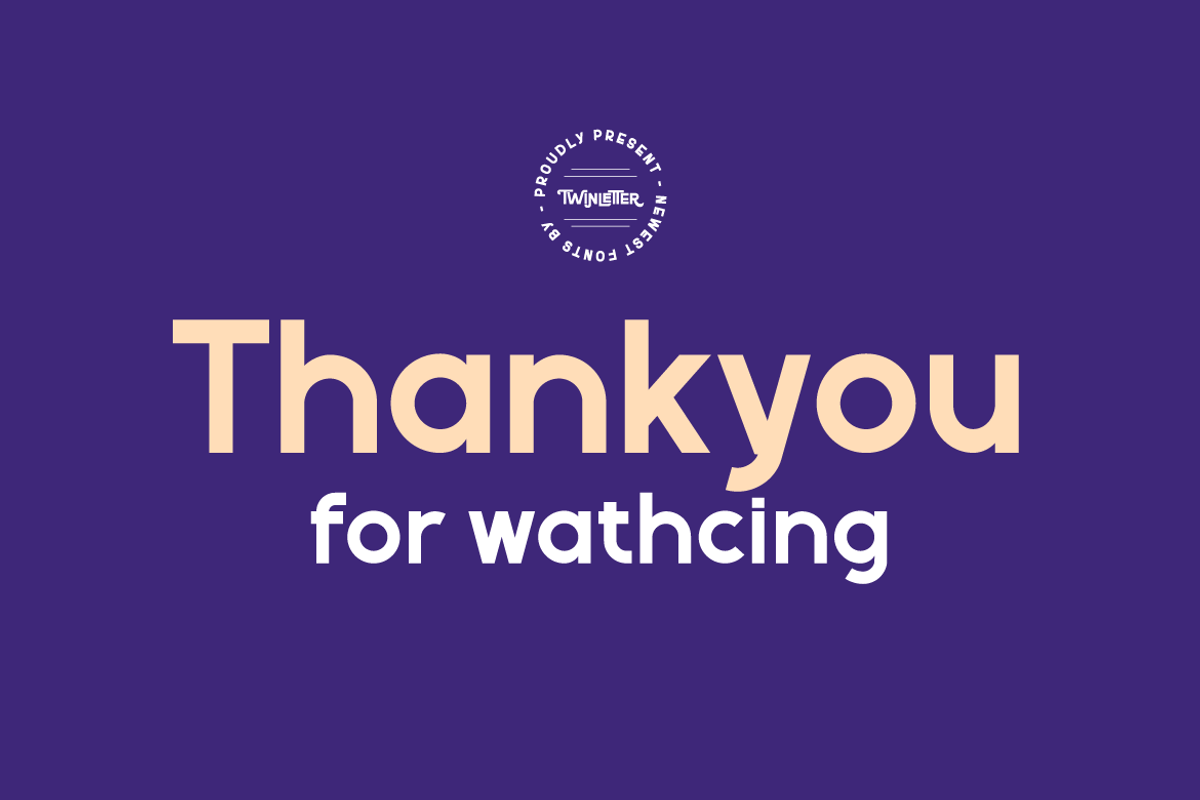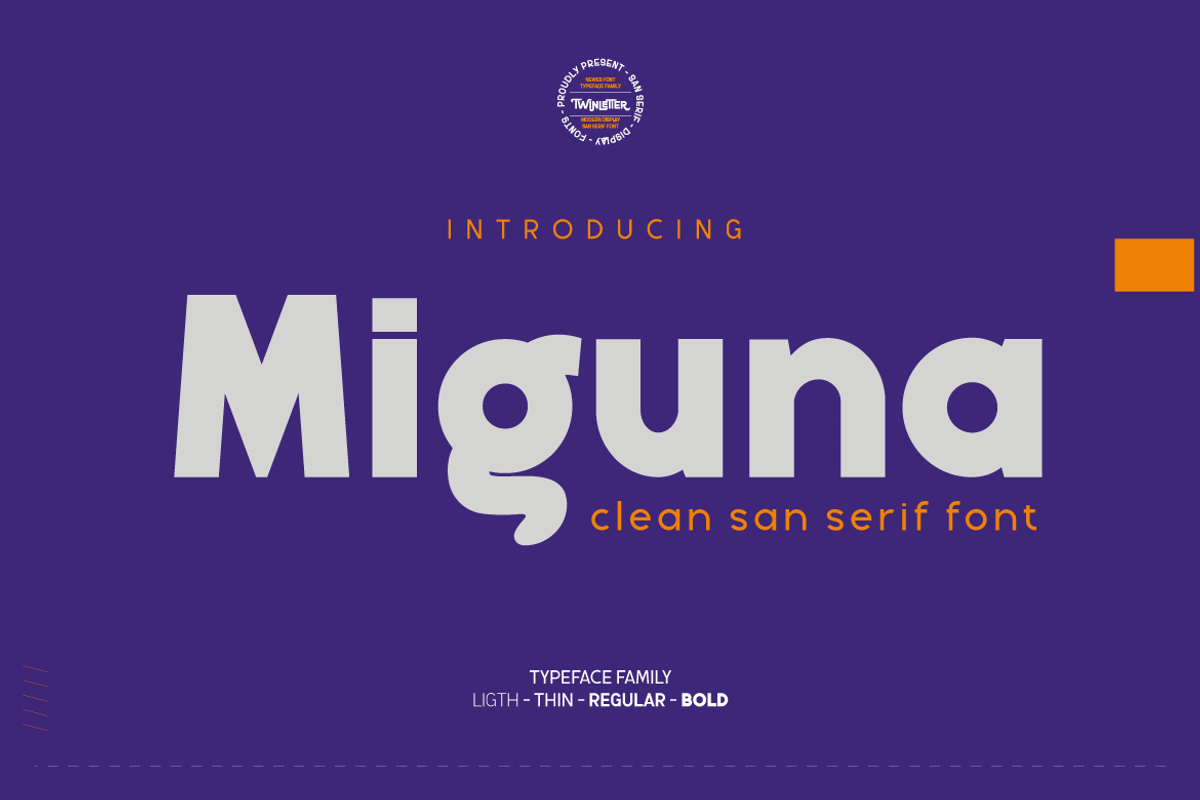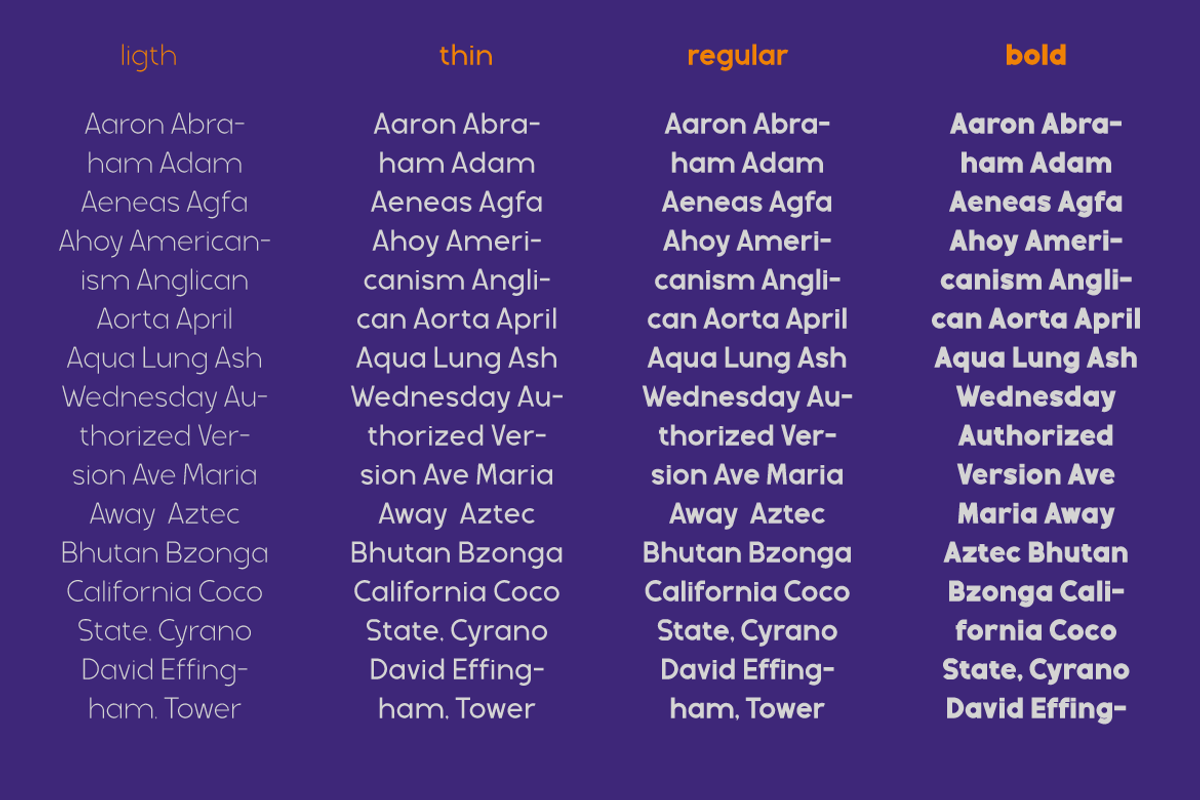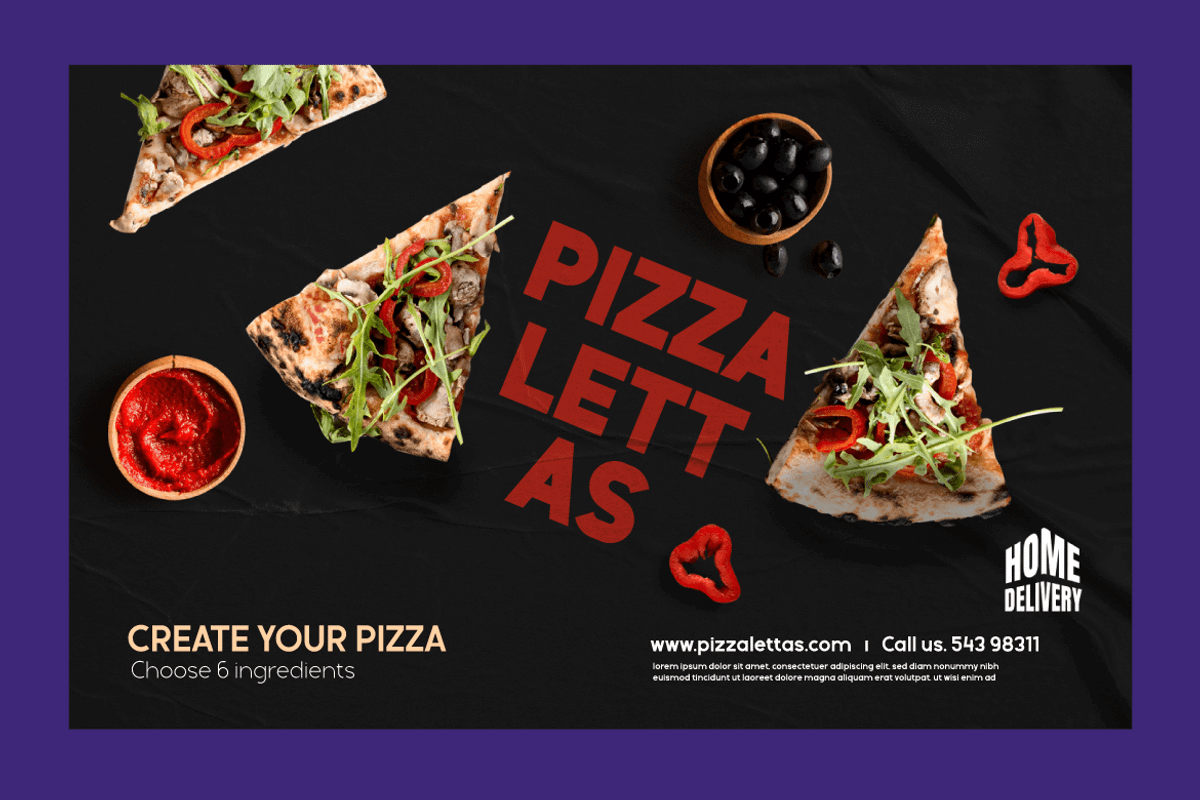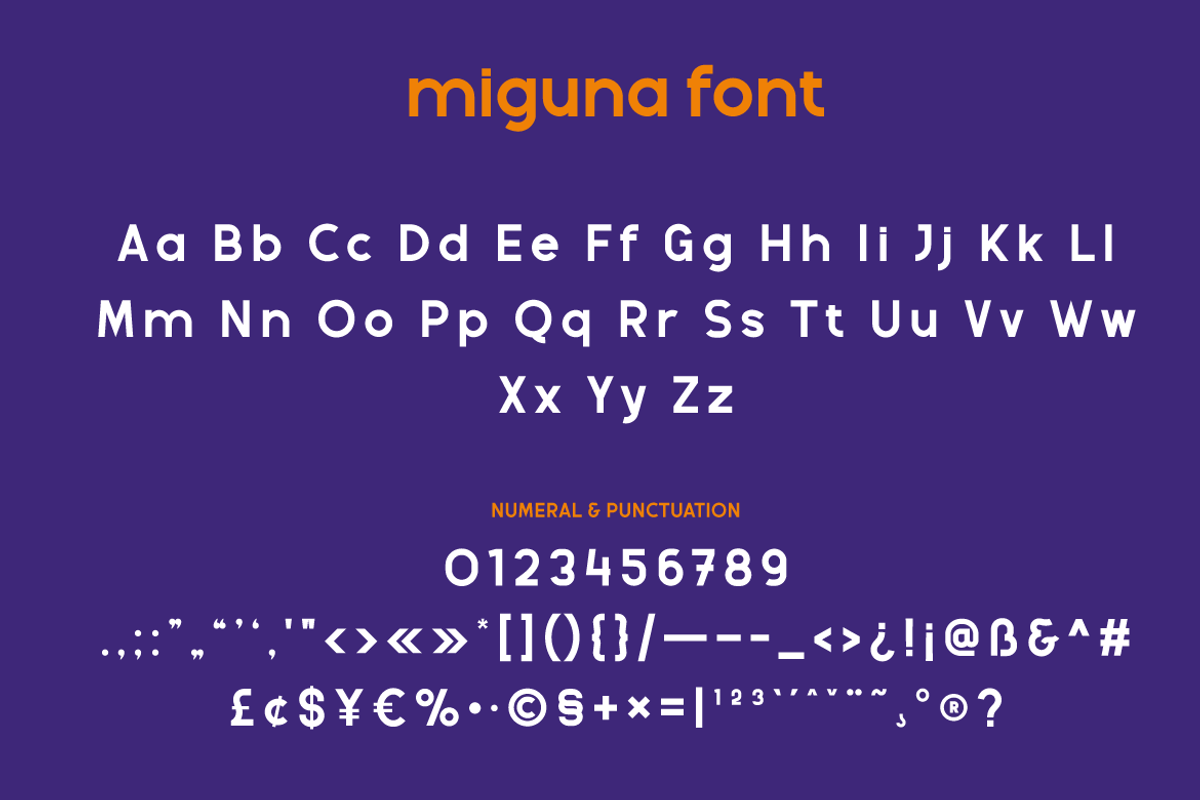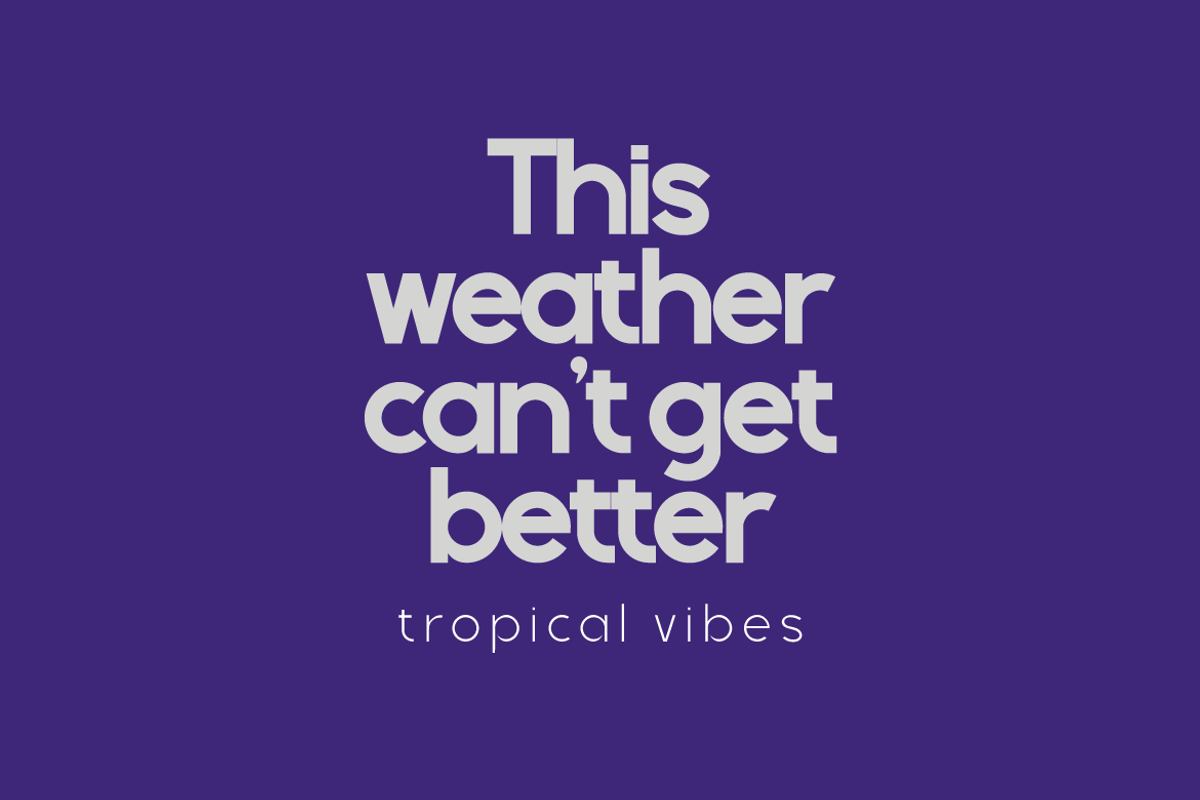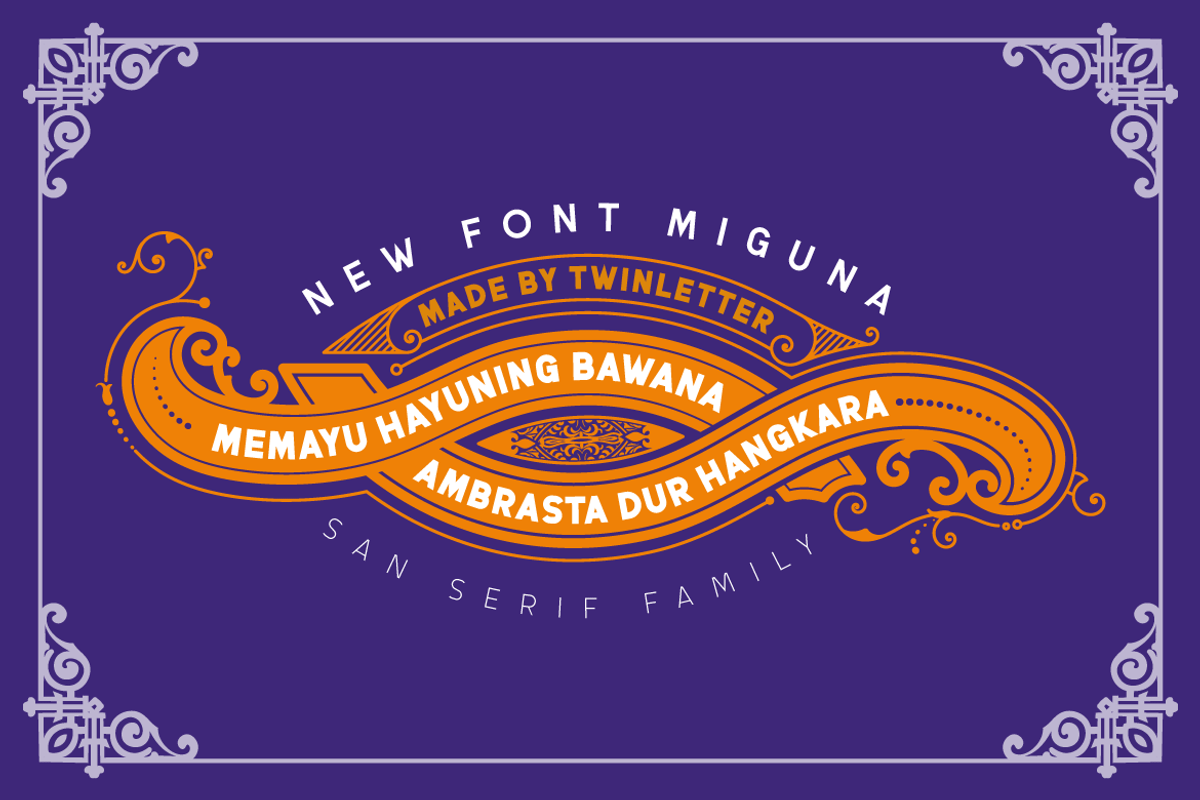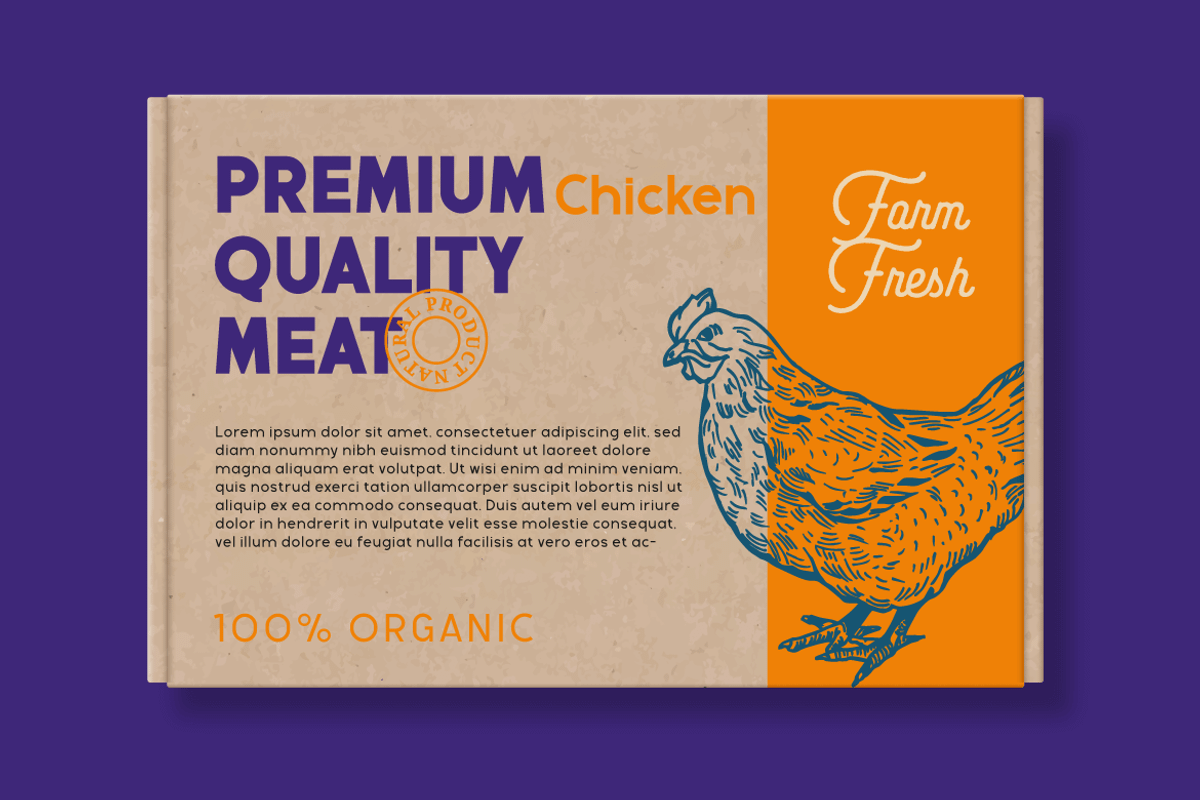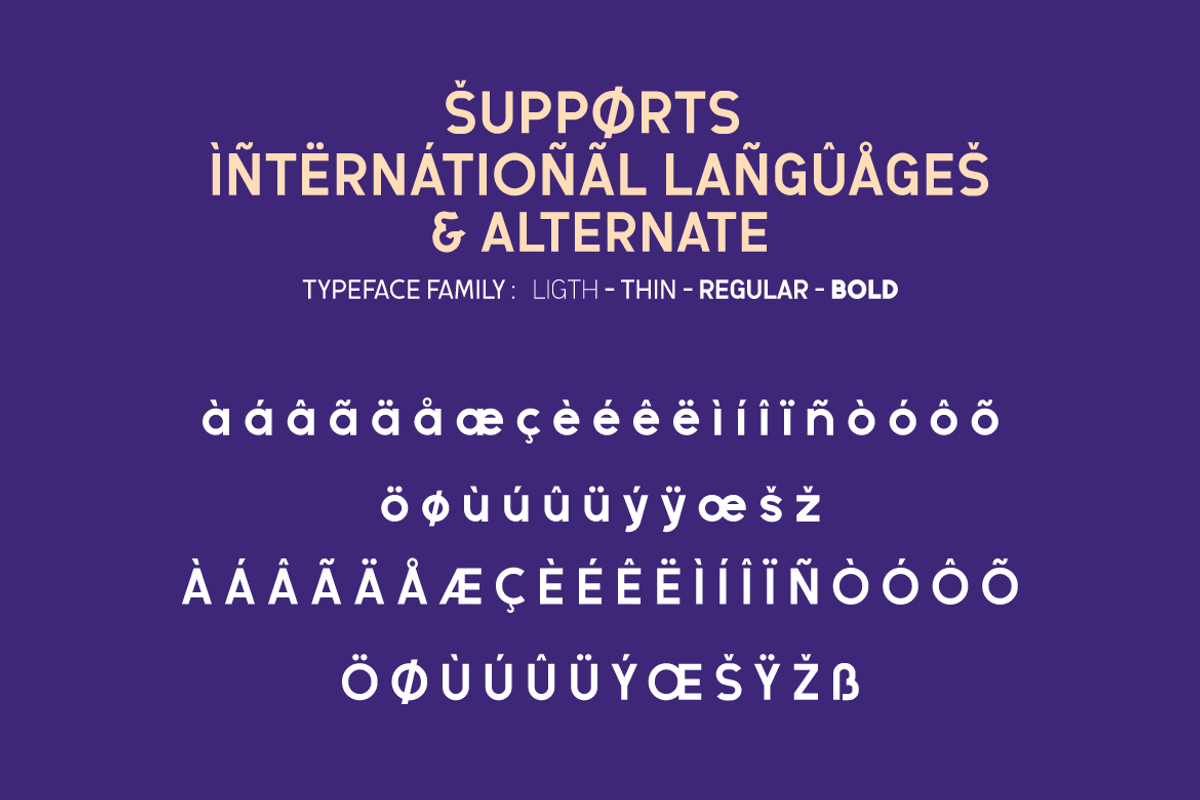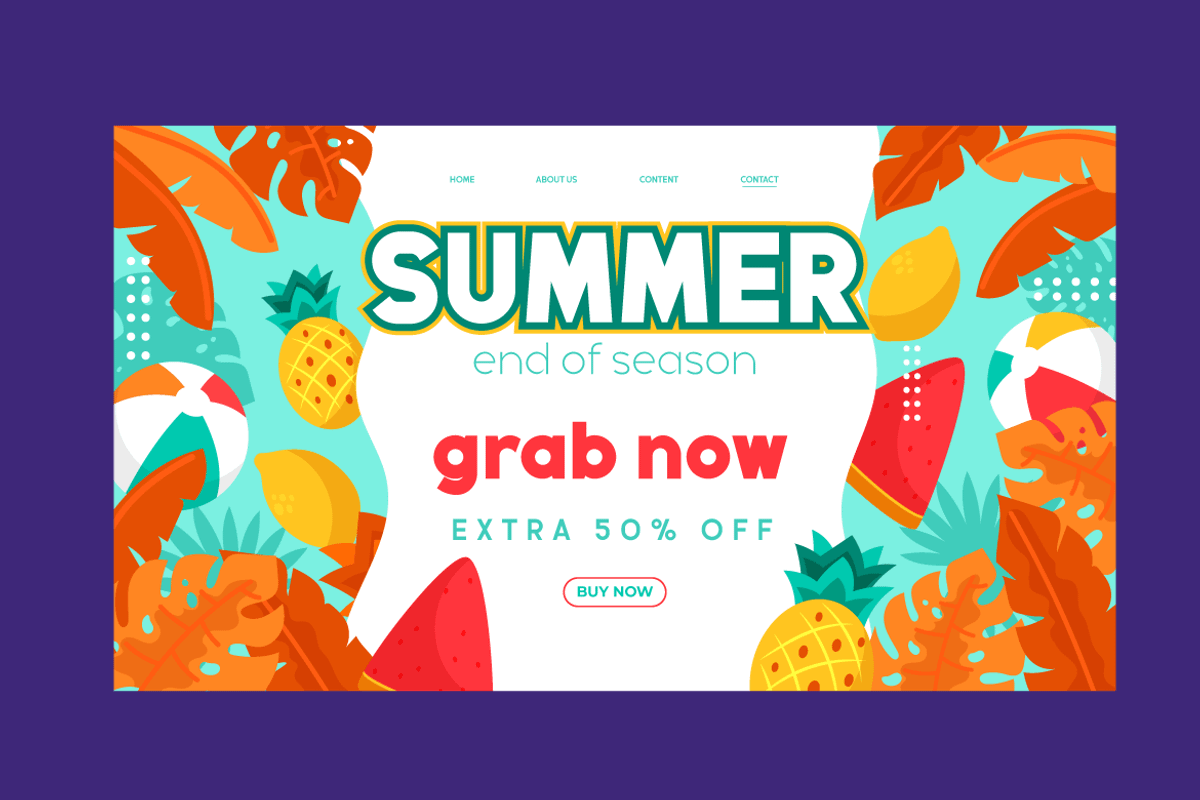
Miguna
Miguna is a san serif family with relaxed, clean, and charming characteristics. its use is also very flexible, can be used for various design projects, both formal and informal, this font is really amazing. Miguna comes with alternatives from the thinnest to the thickest, helping you in creating titles and text.
This font is perfect for packaging, special moment events, branding, banners, posters, movie titles, food and beverages, quotes, clothing, logotypes, and more.